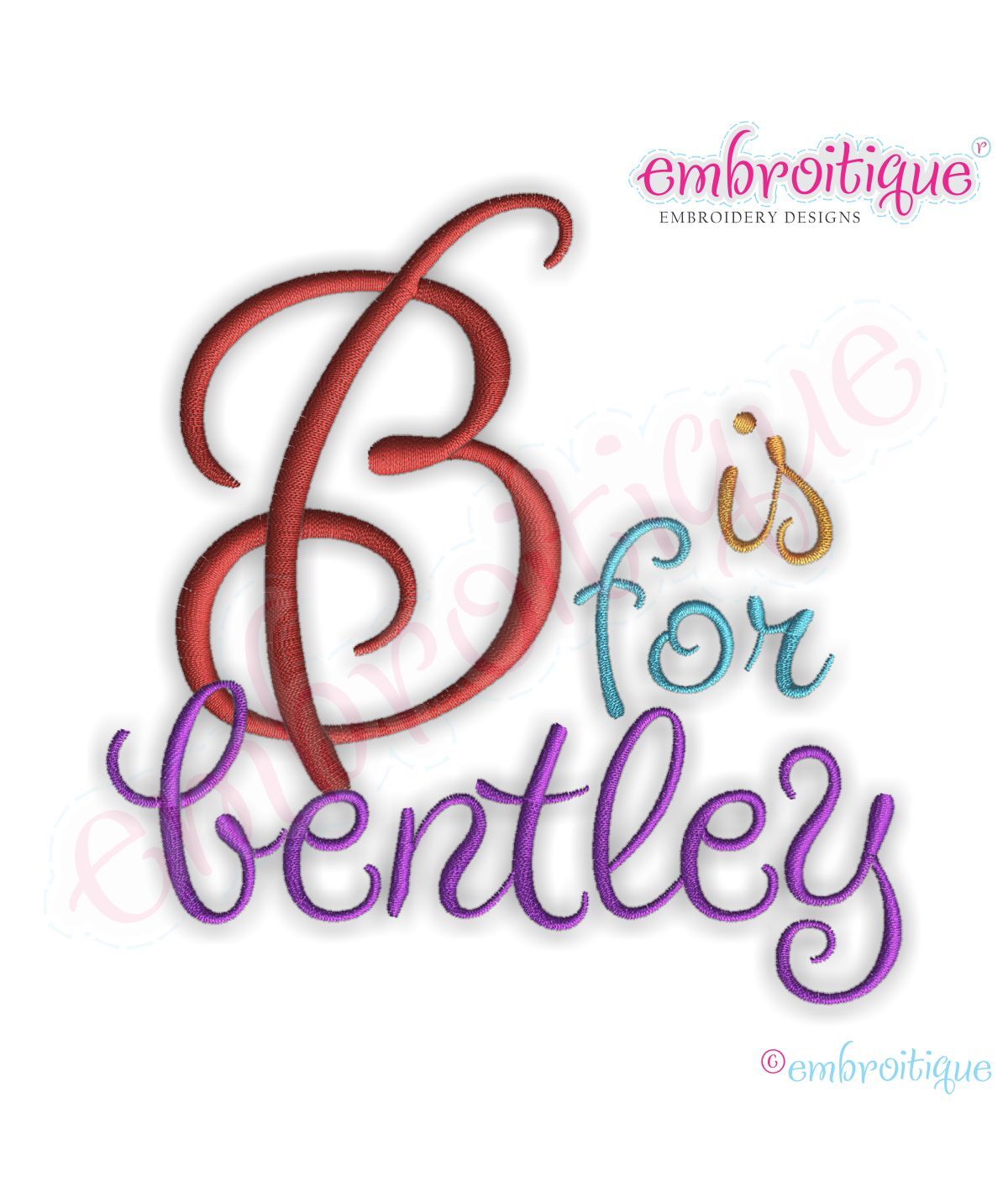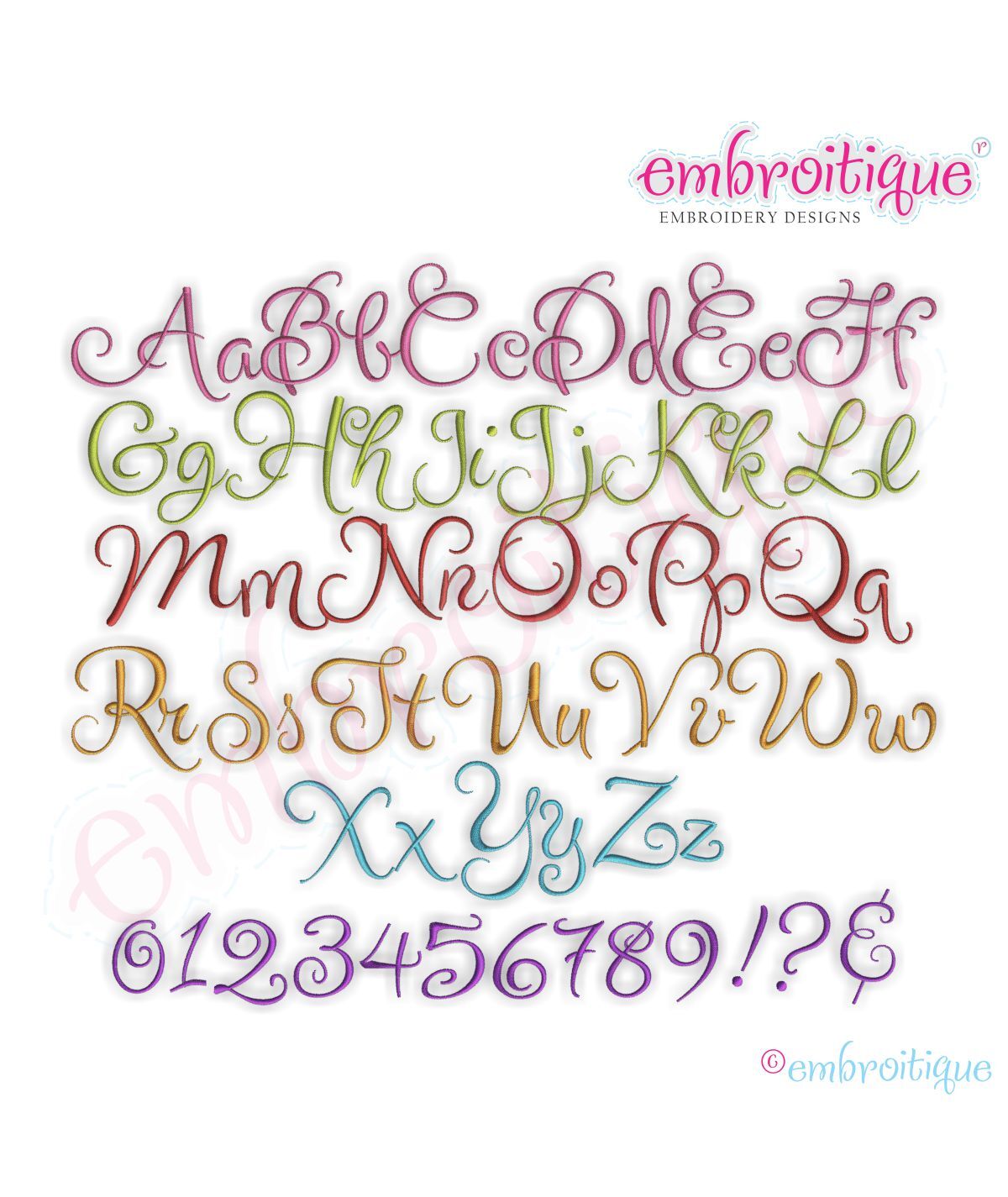
This is such a beautiful monogram set! Each letter is an individual file that you can use to build monograms, names and sayings.
Bentley Monogram is based on the font Puppies Play and licensed through TypeSETit, LLC